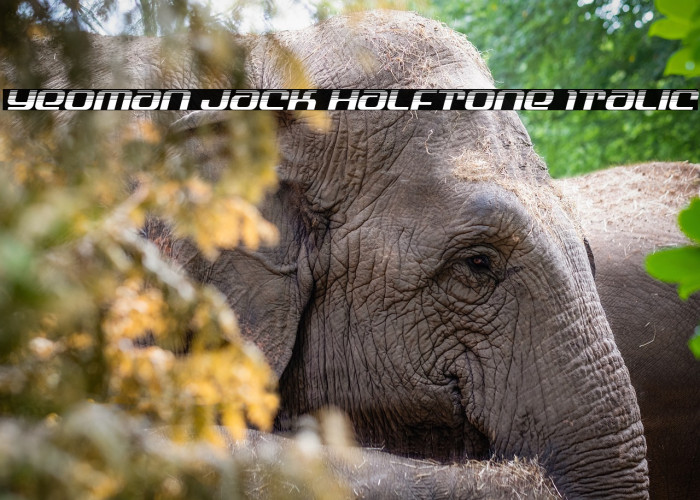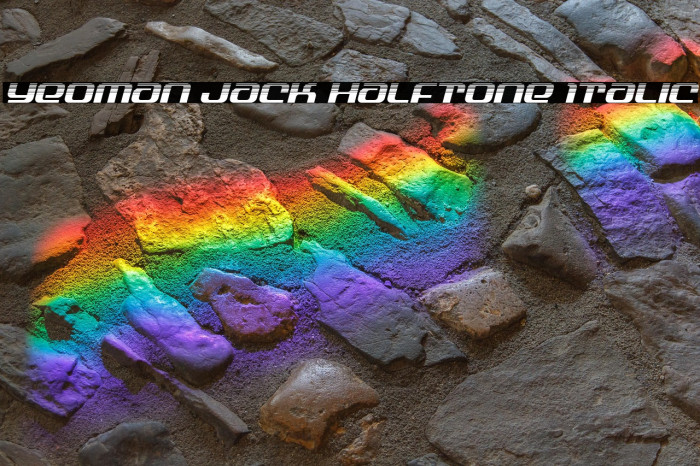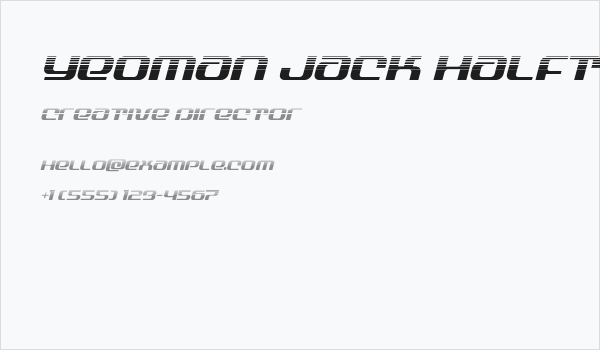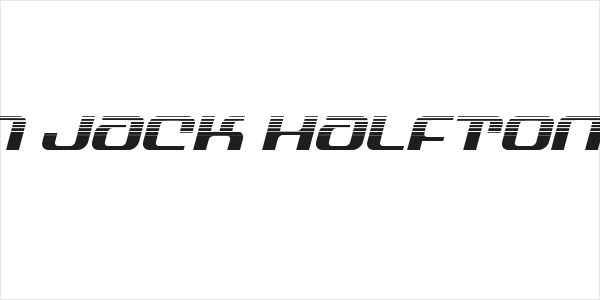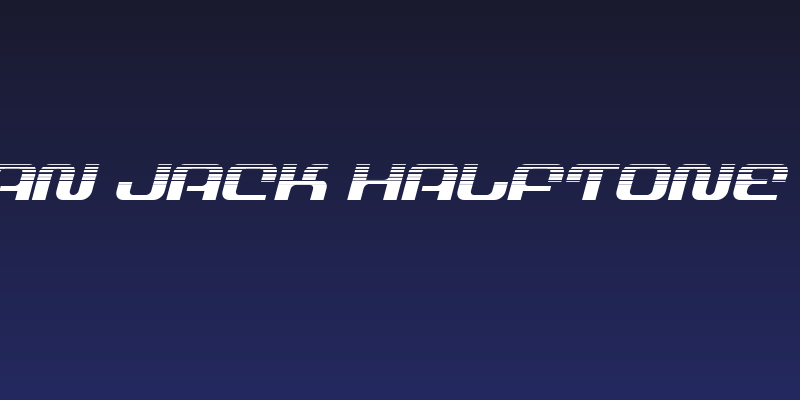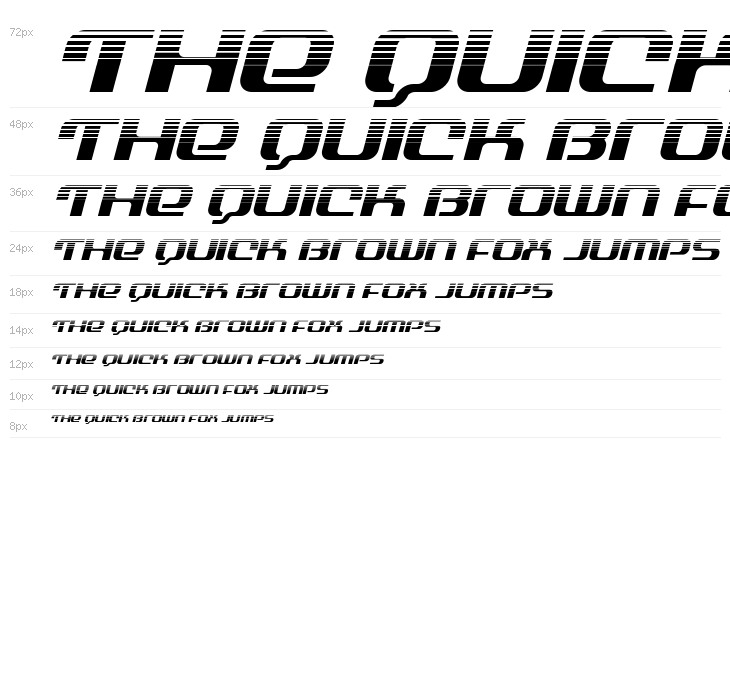
Yeoman Jack Halftone Italic Font
Yeoman Jack Halftone Italic Description
This font features a bold, italicized style with a unique halftone effect that gives it a dynamic and modern appearance. The characters are designed with horizontal lines that create a sense of movement and energy. The uppercase and lowercase letters maintain a consistent slant, enhancing the italicized look. The numbers and special characters are crafted with the same attention to detail, ensuring uniformity across the font. The overall design is striking and eye-catching, making it suitable for projects that require a bold statement.
| Proposed Projects | Ideal for sports branding, futuristic designs, posters, and digital media projects that require a bold and energetic typeface. |